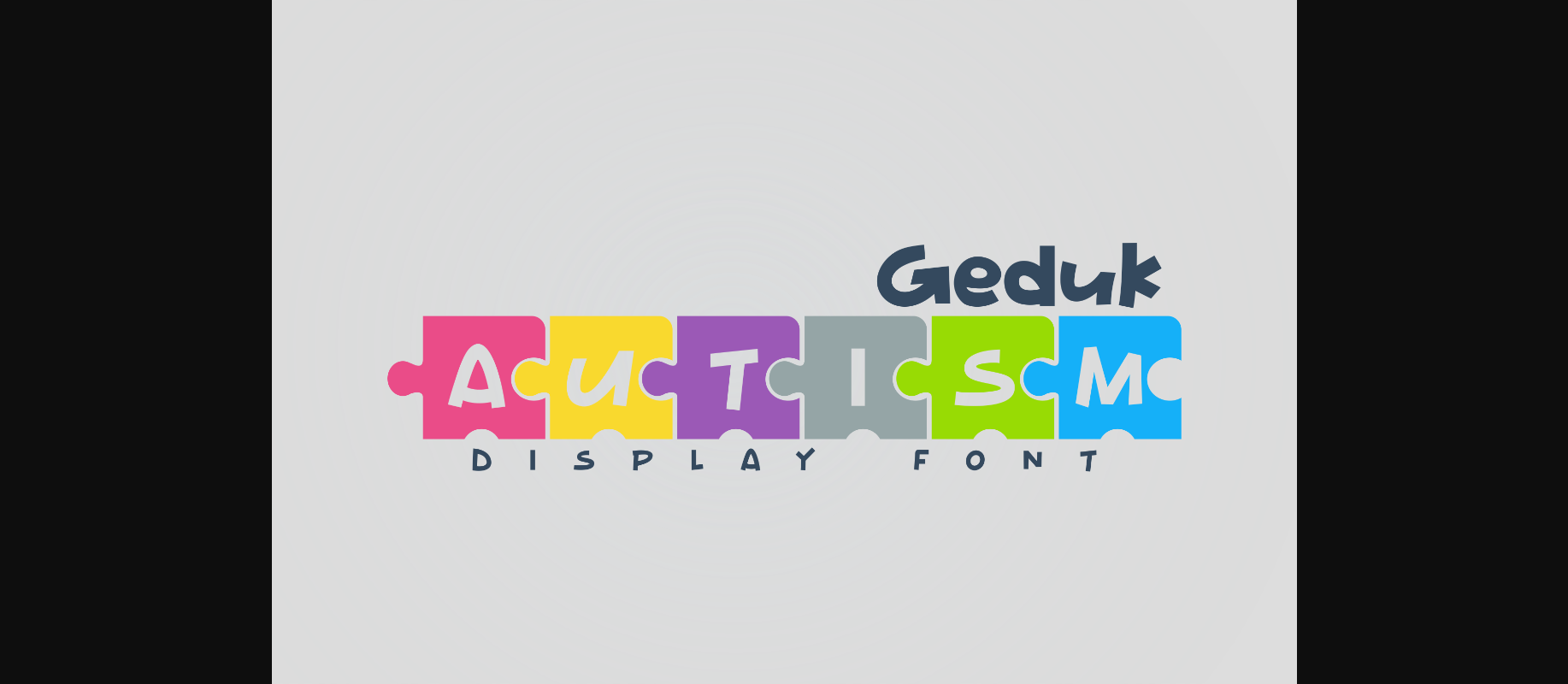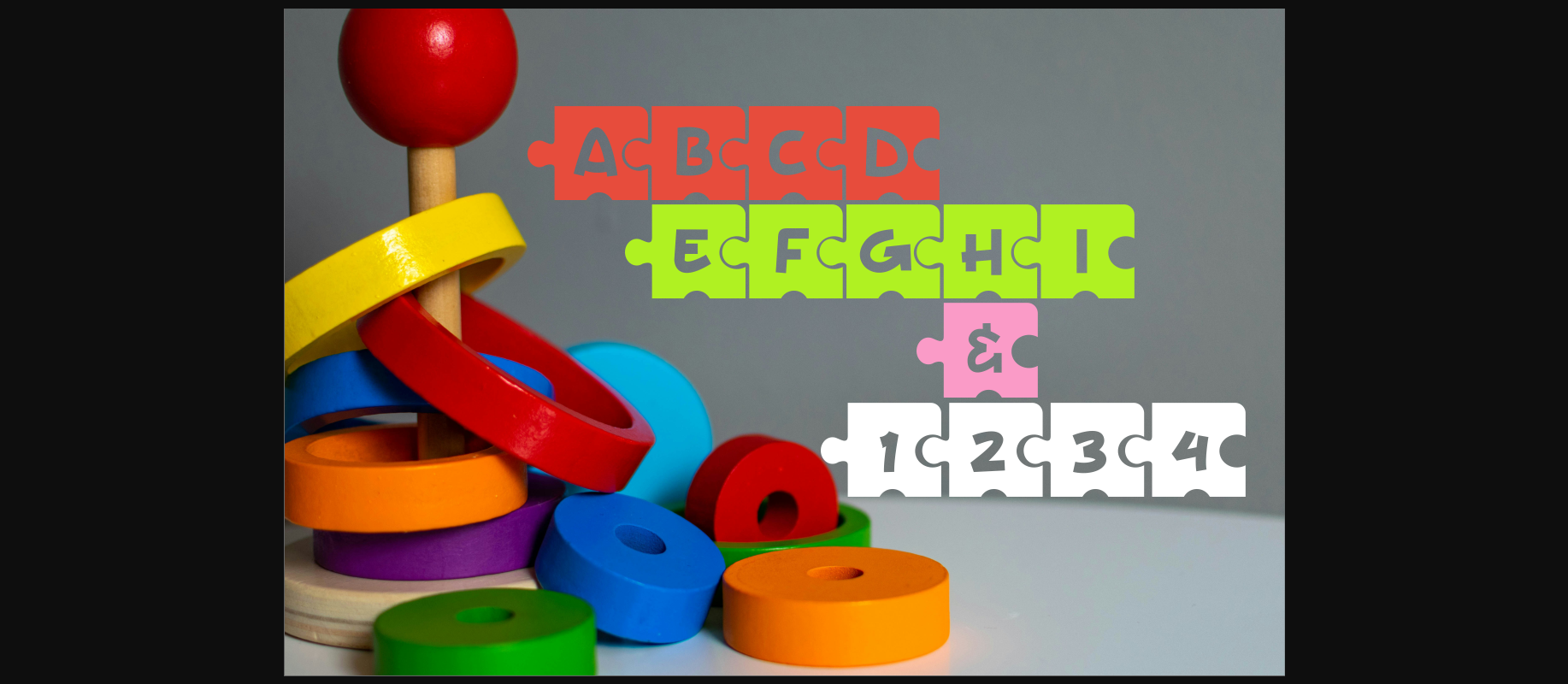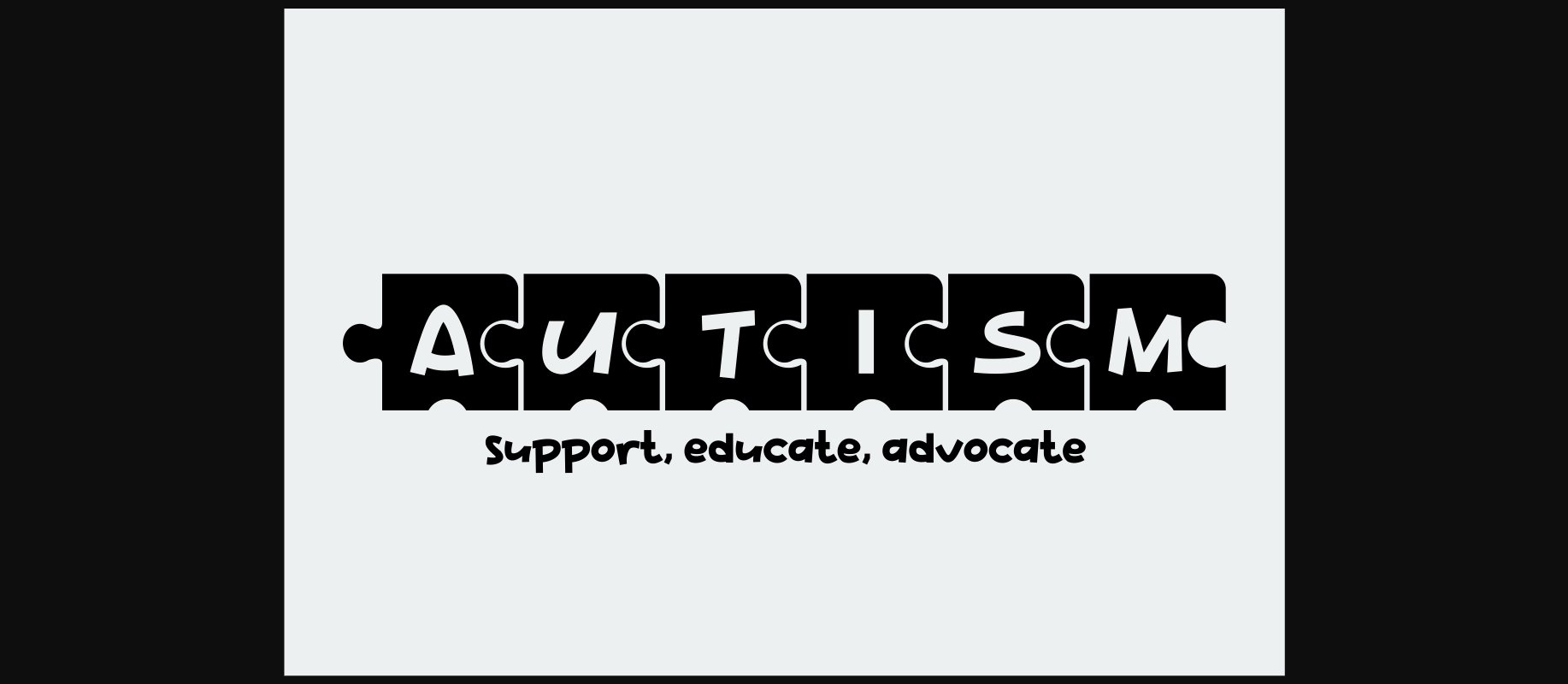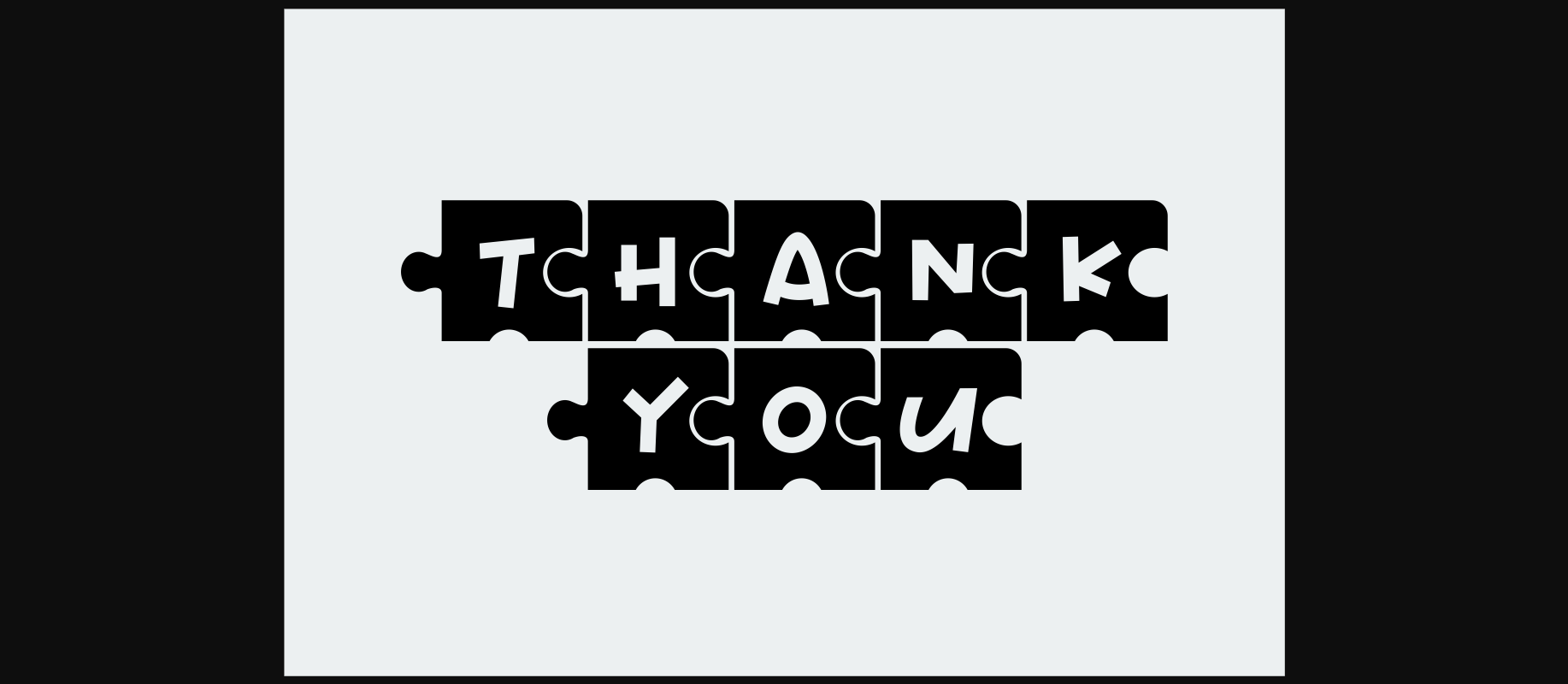
Geduk Autism Font
Introducing Geduk Autism Font: a special decorative font crafted with letters encased within puzzle pieces. Designed with autistic children in mind, it celebrates their limitless enthusiasm and unique perspectives. Each letter is a piece of the puzzle, representing the diversity and beauty of autism. Perfect for creating engaging materials tailored to their needs and fostering creativity and joy in learning.